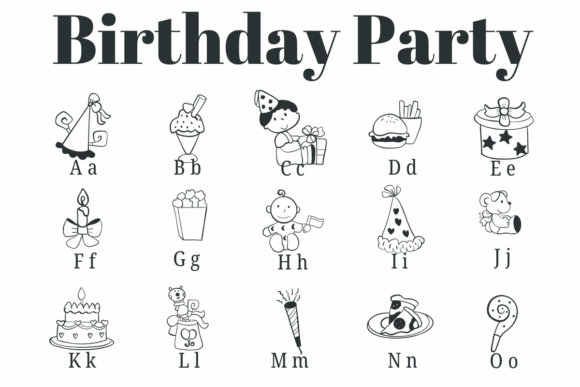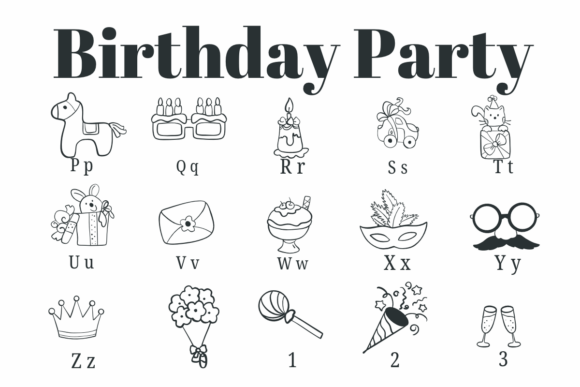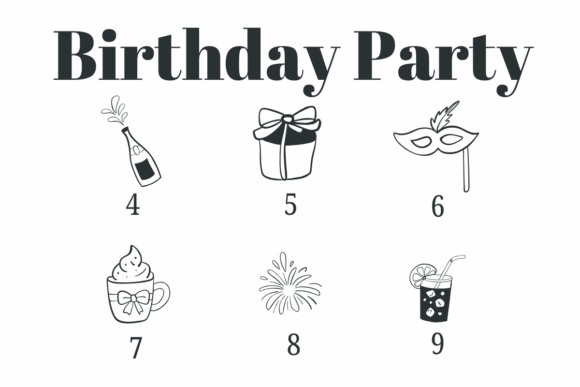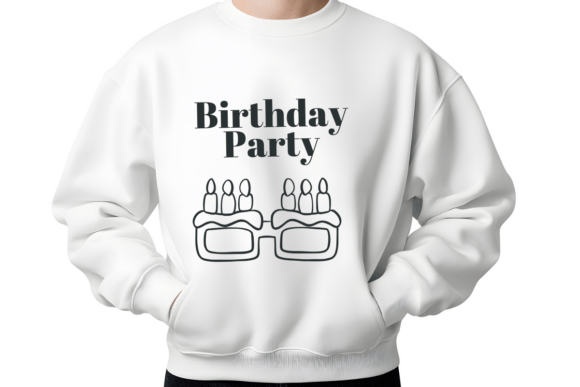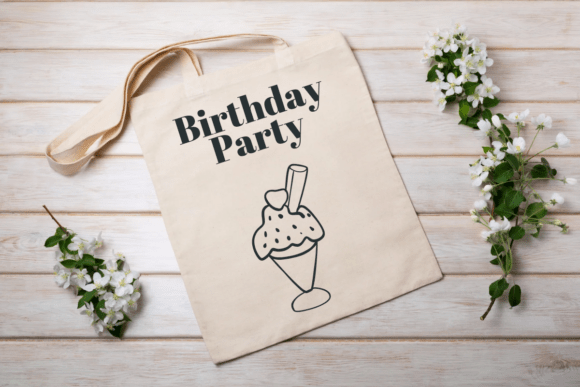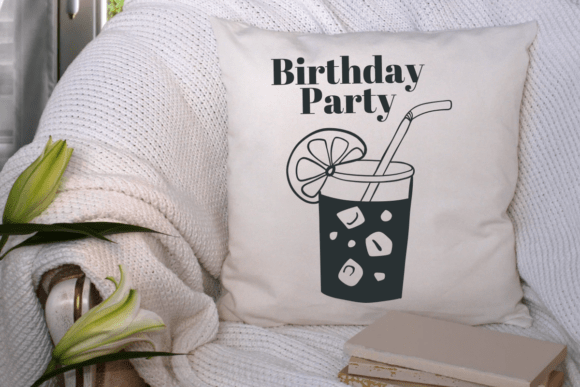
The Ultimate Birthday Party Font Guide: Adding Fun to Your Designs
I’ll never forget the time I was working on a birthday party invitation for a client’s kid. I had the design all planned out, but I just couldn’t find the right font to match the playful vibe I was going for. That’s when I stumbled upon the Birthday Party font, and it was love at first sight! 🎉 In this article, I’ll share my experience with this fun dingbats font, its features, and how to make the most of it in your creative projects.
An Honest Review of Birthday Party Font
- 🎉 **Fun and playful design**: The Birthday Party font is perfect for adding a touch of whimsy to your designs, making it ideal for birthday parties, celebrations, and festive events.
- 🌈 **Versatile**: The font’s dingbats style allows it to be used in a variety of creative projects, from invitations and posters to social media graphics and more.
While the Birthday Party font is amazing, there are a few things to keep in mind:
- 🤔 **Limited character set**: As a dingbats font, it has a limited character set, which means you won’t have access to a wide range of letters and numbers.
- ⚠️ **Not suitable for body text**: Due to its decorative nature, the Birthday Party font is best used for headlines, titles, or accents, rather than body text.
The Design Story Behind Birthday Party Font
The Birthday Party font was designed with one goal in mind: to bring fun and excitement to your designs. Its creator, a talented type designer, was inspired by the joy and celebration of birthday parties and wanted to create a font that would capture that spirit. With its playful dingbats style and easy-to-use design, the Birthday Party font has become a favorite among designers and crafters.